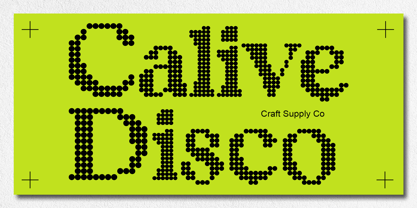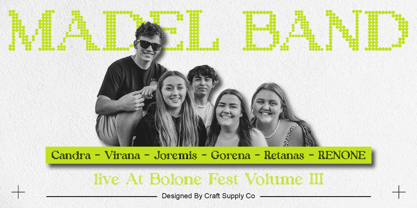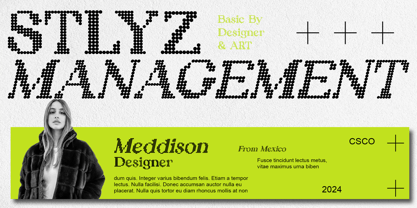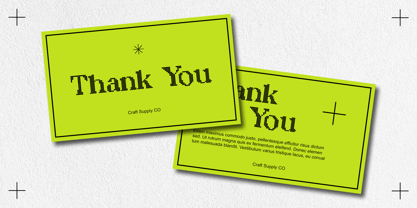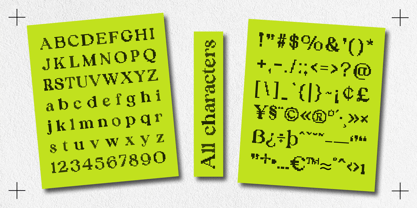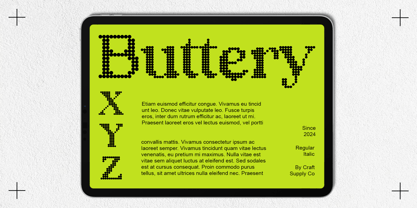
Calive Disco
The Calive Disco Font Family was designed by Trio Nazzar Saputra, Wahyu Hadi Yuana and published by Craft Supply Co. Calive Disco contains 2 styles and family package options.
Calive Disco: Adding Groove to Display Typography
Funky Moderate Contrast Serif
Calive Disco presents a unique display font with a moderate contrast serif style. Its funky appearance captures the essence of retro disco vibes, perfect for eye-catching displays.
Disco-inspired Effects
Drawing inspiration from the disco era, This font features mesmerizing effects reminiscent of disco lights and dance floors. The font’s dynamic elements bring a sense of movement and excitement to any design.
Tailored for Display Needs
Designed specifically for display purposes, This font shines in various applications, from posters to digital banners. Its bold presence and disco-inspired aesthetic ensure that your message gets noticed.
Versatile and Impactful
Beyond its disco flair, This font offers versatility in application. Whether used for branding, event promotions, or editorial design, its unique style adds a touch of groove and impact to any project.
Bringing Retro Vibes to Life
This font emerges as a captivating display font, infusing retro disco vibes into modern design. With its moderate contrast serif style and disco-inspired effects, it adds a unique flair to any display project, ensuring maximum impact and visual appeal. Step into the groove with This font and let your designs shine with retro charm.